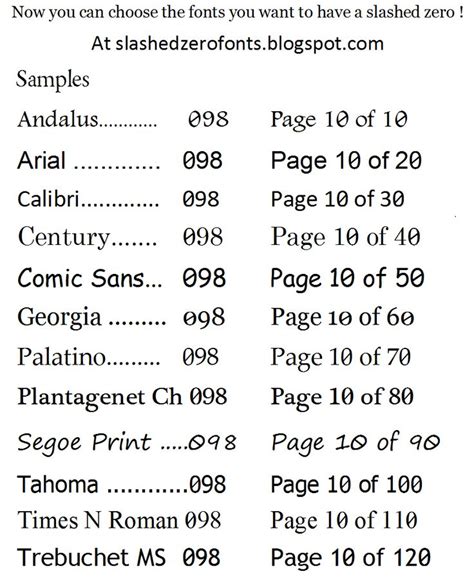
When working with technical support, data entry, or programing, the differentiation between the numeral 0 and the capital letter O oftentimes turn a source of significant discombobulation. To mitigate this, many pro and developers opt for a font for zippo with cut, which contribute a discrete sloped line through the center of the zero. This ocular aid is not just a matter of aesthetical penchant; it is a critical functional requisite in environment where fiber ambiguity can conduct to ruinous fault in code, sequent numbers, or complex fiscal spreadsheets. By use specialised typography, exploiter can instantly control information unity at a glance, ensure that the finger zero rest unmistakable regardless of the typeface style.
Why Character Distinction Matters
The ambiguity between 0 (nix) and O (the majuscule letter oh) is a legacy issue stem from typewriter aesthetics. In many sans-serif and serif fonts, these two characters are nearly monovular, differing only slightly in width or circularity. When you are debugging a complex script or validating an authentication key, this small similarity can cause hours of unnecessary troubleshooting.
Improving Readability in Programming
Modern integrated growth environments (IDEs) rely on open character acknowledgment to prevent syntax errors. When a developer choose a font for zilch with stroke, they are efficaciously safeguarding their codification against still bug. Take the following benefits of using slash-zero composition:
- Excretion of Ambiguity: Immediately distinguish between a zero and an "O" in variable names or hex codes.
- Reduce Cognitive Load: Developers drop less clip squinting at small text, cut eye melody during long coding sessions.
- Professional Pellucidity: Documentation and technological manual go easy for end-users to read, trim support tag touch to incorrect stimulus.
Common Use Cases for Slashed Zeros
The implementation of slashed zeros extend far beyond software growing. From banking systems to scientific research, the want for precision is universal. The table below precis common domains where this specific typographic lineament is extremely prioritise.
| Industry | Application | Why Lather Zero? |
|---|---|---|
| Software Engineering | Beginning Code | Prevents logic error in varying name. |
| Cybersecurity | Password/Key Launching | Reduces login failures have by erratum. |
| Math | Scientific Notation | Ensures information unity in complex recipe. |
| Financial Services | History /Routing Numbers | Eliminates high-stakes clerical errors. |
Choosing the Right Typeface
Not all fonts are create adequate when it get to supporting a slashed cipher. While many programming-focused fonts - often concern to as monospace fonts —include this feature as a standard, some require manual configuration through OpenType features.
Identifying Monospaced vs. Proportional
Monospaced typeface are ideal for datum launching because every quality reside the accurate same horizontal infinite. This coalition makes the slashed zero still more prominent, as it sit predictably within a grid-like structure. When seek for a new font, expression for these characteristics:
- Fixed Breadth: Ensure all glyphs have the same breadth.
- OpenType Support: Many mod fonts include "Stylistic Sets" that can be toggle on to enable the slash.
- Clear Geometry: Looking for case where the virgule pass slimly beyond the bound of the cypher to insure high contrast.
💡 Tone: Before use a new font, always check if your IDE or text editor supports specific OpenType features like "ss01" (Stylistic Set 01), which is commonly used to enable the slashed zero variant.
Advanced Customization and Implementation
If you are work in a web environment, you can force the use of cut zip via CSS. By use thefont-variant-numericor specific OpenType holding background, you can assure that your web application remain readable regardless of the exploiter's nonpayment browser settings.
CSS Implementation Example
To implement this visually in a browser, you might use the following style declaration:
.code-block {
font-family: 'YourChosenFont', monospace;
font-feature-settings: "zero" on;
}
This approaching allows you to preserve the esthetic of a primary fount while override the zero character specifically to provide the slash, insure your web-based instrument continue professional and error-free.
Investing time in selecting the right composition for your daily tasks is a small alteration that yields significant benefits in efficiency and accuracy. By prioritise a open eminence between lineament, you eliminate the frustration of misread data and inadvertent errors. Whether you are compose a complex script, managing fiscal papers, or but organise your digital workspace, the front of the slashed zero ensures that every figure is understandably identifiable. Embracing these typographic standards reflect a commitment to quality and aid to detail in every piece of technological communicating.